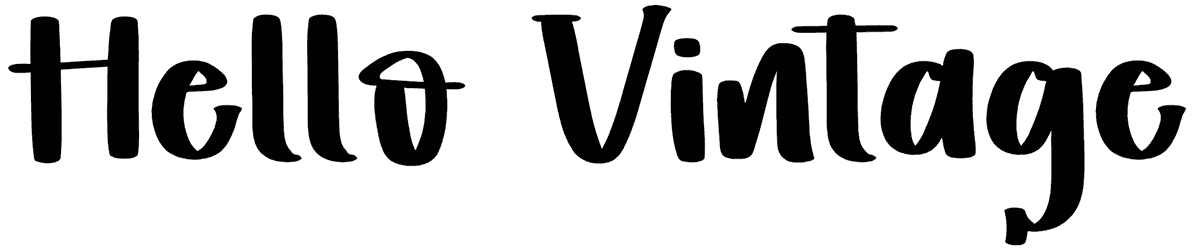
Hello Vintage Font
If you want to look good on brochures, clothing, stationery, and any other packaging, have Hello Vintage at home and implement your new ideas with its help. This script font has attractive characters that can bring you a lot of profit by attracting customers and turning their way toward you.
Because in the presence of this handwritten font, a wholly human and personal feeling is created, which will spread a sense of trust in the environment.